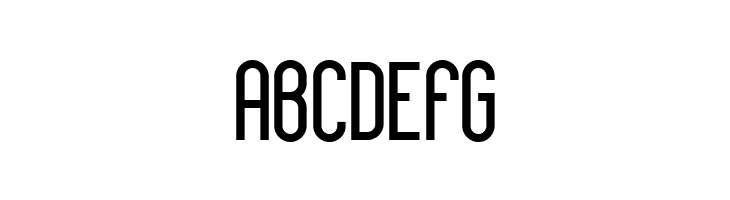
Fontastique Font
A modern, rounded font with smooth curves and a friendly appearance.
Dekers_Bold Font
A modern, geometric font with clean lines and rounded edges.
Balkeno Font
A modern, geometric font with rounded edges and a sleek design.
Agnes serif Font
A modern, artistic font with thin lines and bold circular accents.
Linea Font
A modern, double-line font with a geometric and futuristic style.
Ageone Font
A modern, geometric sans-serif font with clean lines and a sleek design.
Ageone serif Font
A sleek, modern font with geometric structure and consistent stroke width.
Constance Font
A modern sans-serif font with smooth curves and consistent stroke width.
Marilou Font
A modern, geometric font with rounded edges and a sleek design.
Rachel Font
A modern, elegant script font with smooth, flowing lines.
Cilogie Font
A modern, geometric font with sleek, rounded edges and consistent height.
Explora Font
A bold, modern sans-serif font with geometric shapes and rounded edges.
Olivia Font
A bold, modern font with geometric curves and playful elements.
Emmanuelle Font
A bold, modern font with geometric shapes and consistent stroke width.
Melody Melody Font
A bold, rounded font with a playful and modern aesthetic.
Rajkeys Font
A modern, geometric font with clean lines and rounded edges.
Dollis Font
A futuristic, geometric font with sharp edges and uniform stroke width.
Nioubes bold Font
Charlotte Font
A modern, clean font with smooth curves and rounded elements.
Eve-Isabelle Font